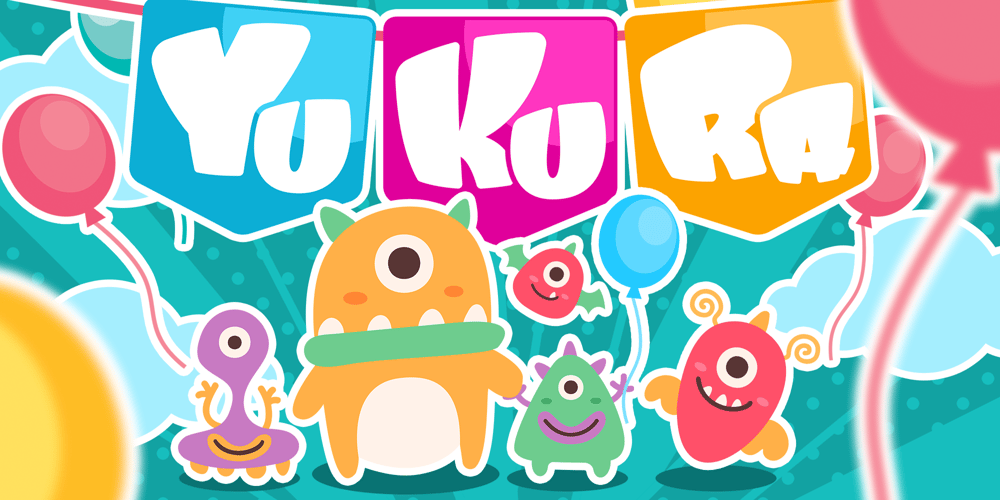
Yukura Font Family was designed by Sadaomi Muramatsu and published by CONNECRE. Yukura contains 1 styles and family package options. Yukura is a charming and approachable sans-serif font that combines cuteness and friendliness. This font features a plump shape that is perfect for designs aimed at children or with a cute aesthetic, and its bold lettering makes it especially suitable for logos and headlines.With its endearing and approachable qualities, Yukura can effortlessly infuse your designs with an irresistible charm. Don’t hesitate to incorporate it into your designs and showcase its adorable personality.